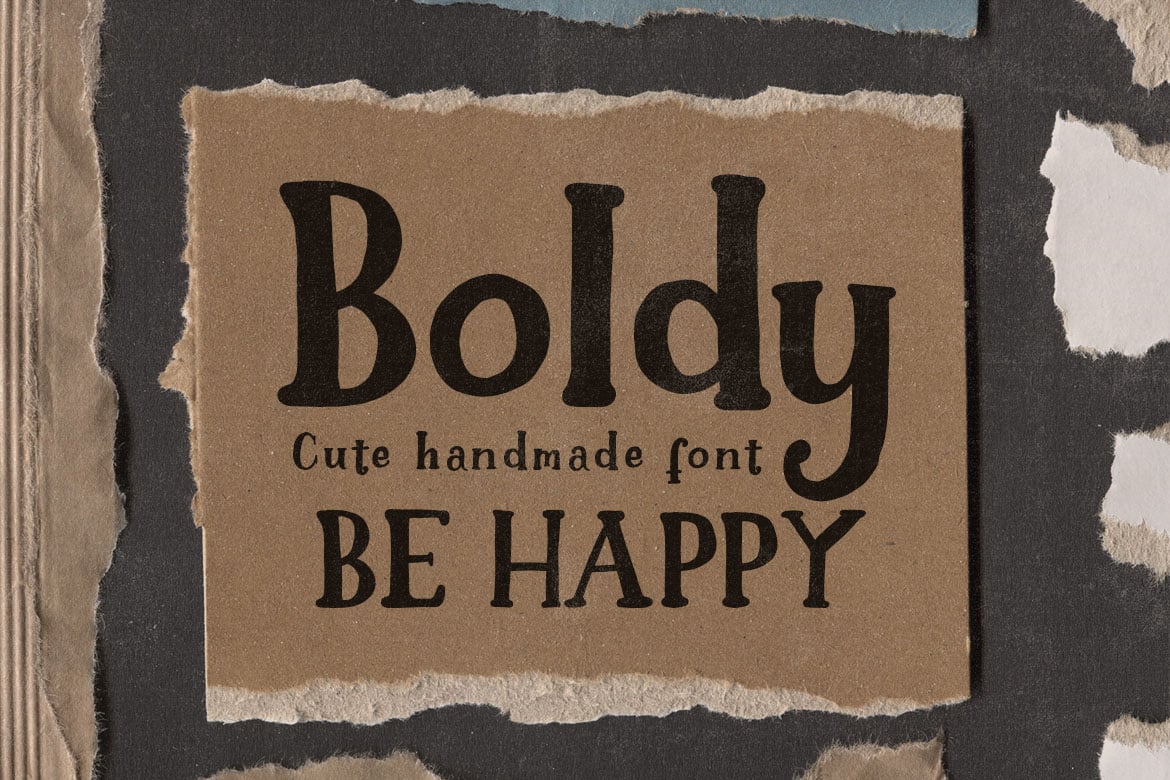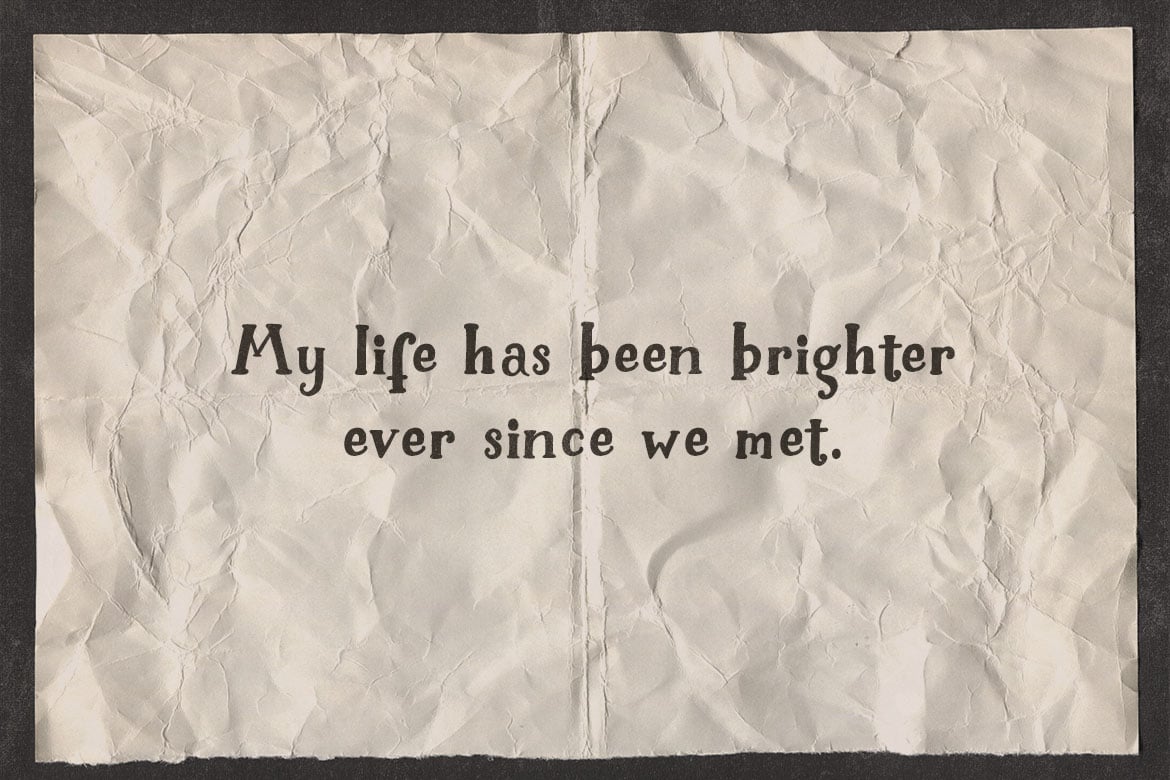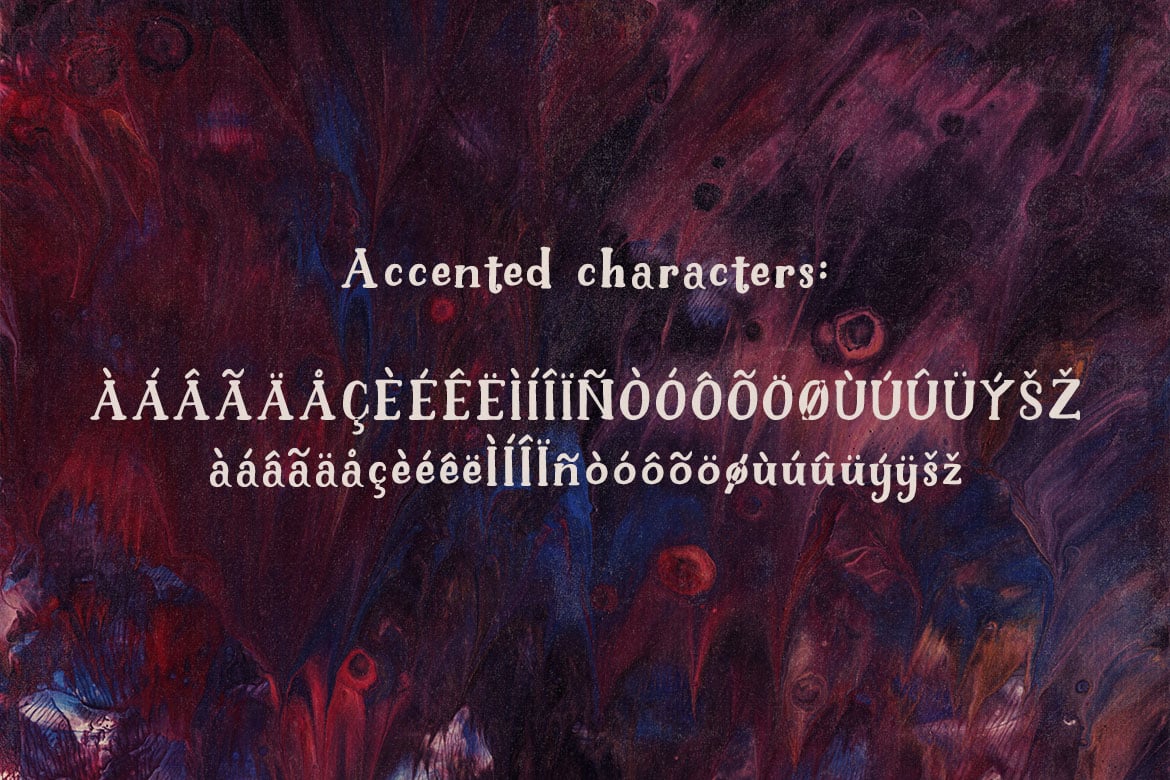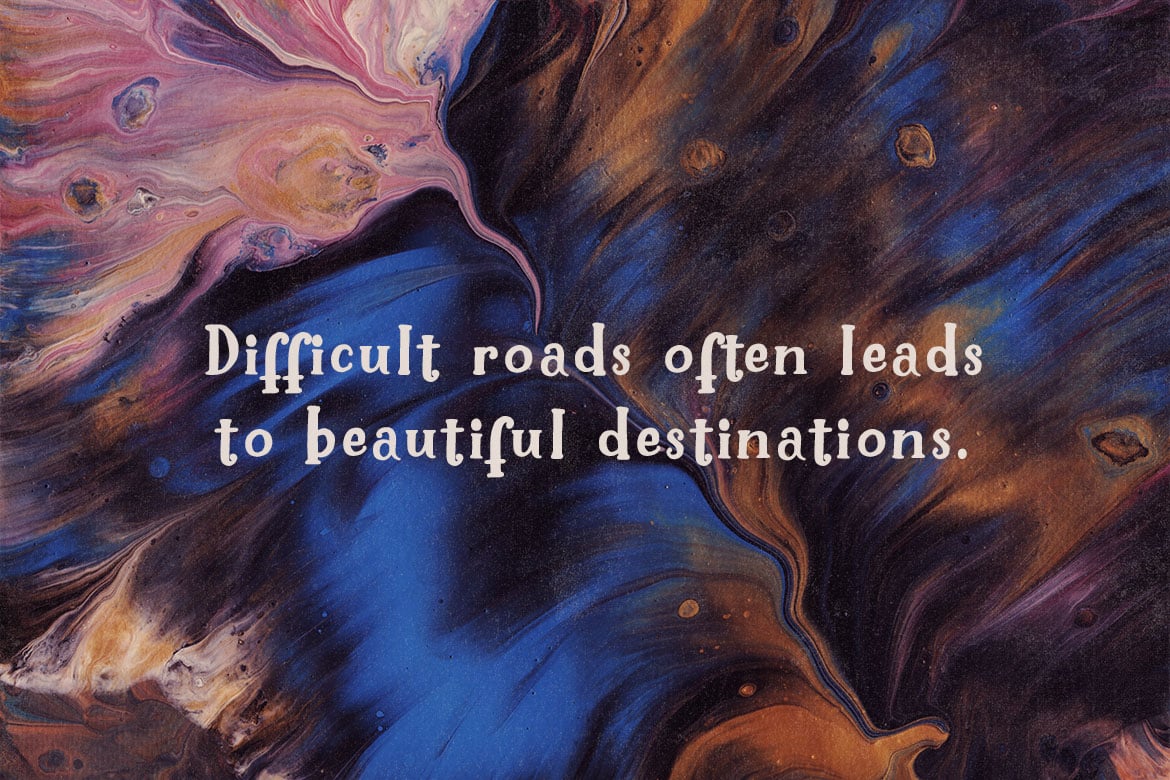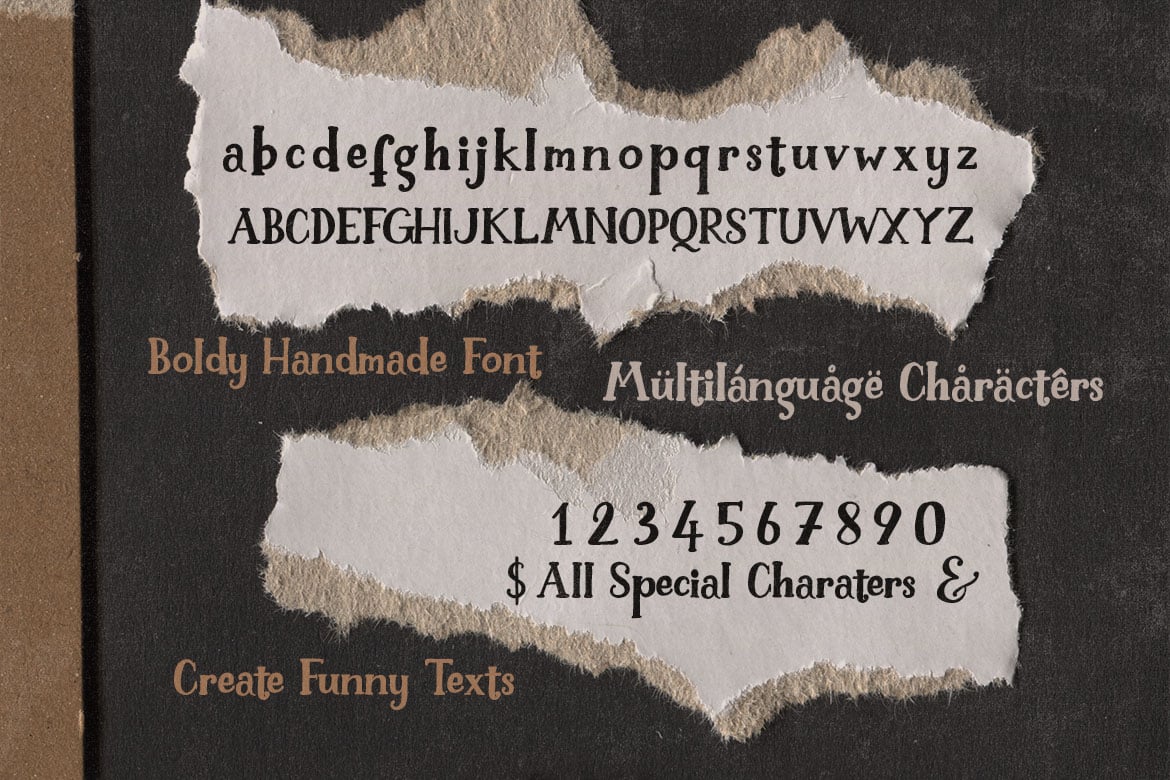
Boldy – Cute Handwritten Font
Marker, handwritten, cute & funny style serif font for your new projects. Great for funny, grunge or artistic projects!
- multilanguage support